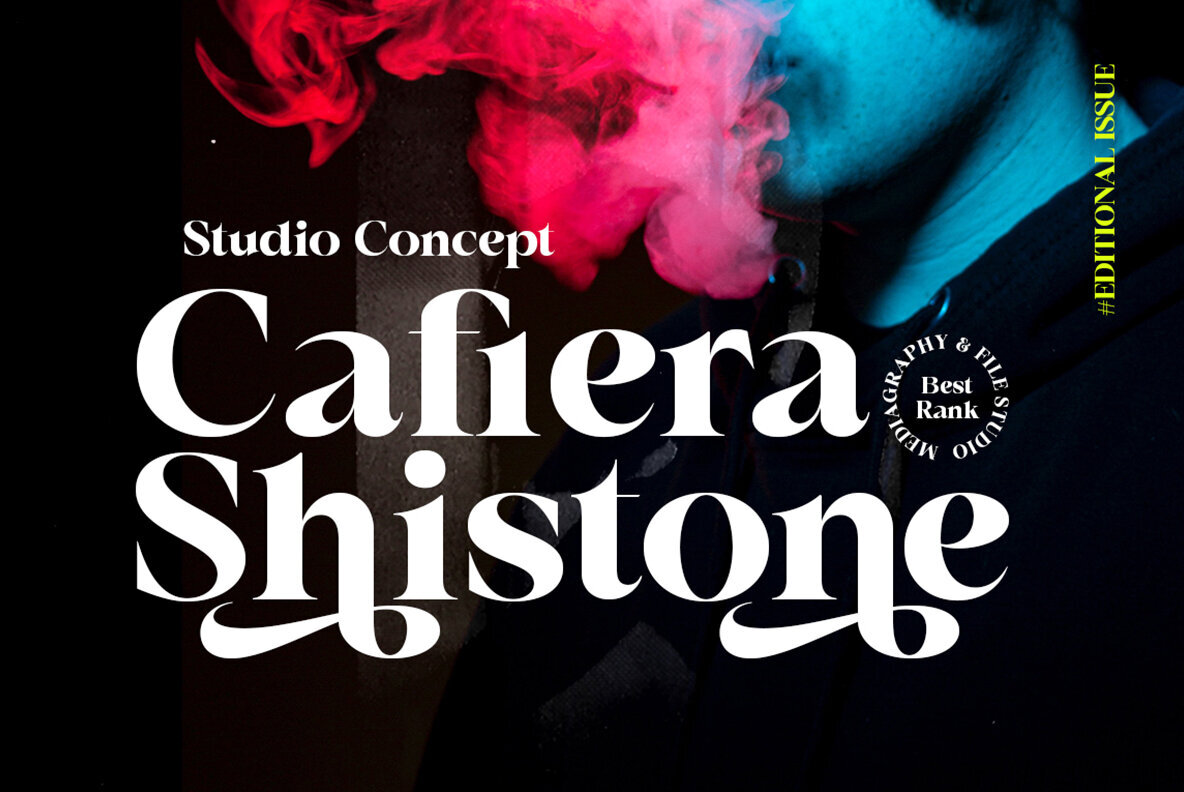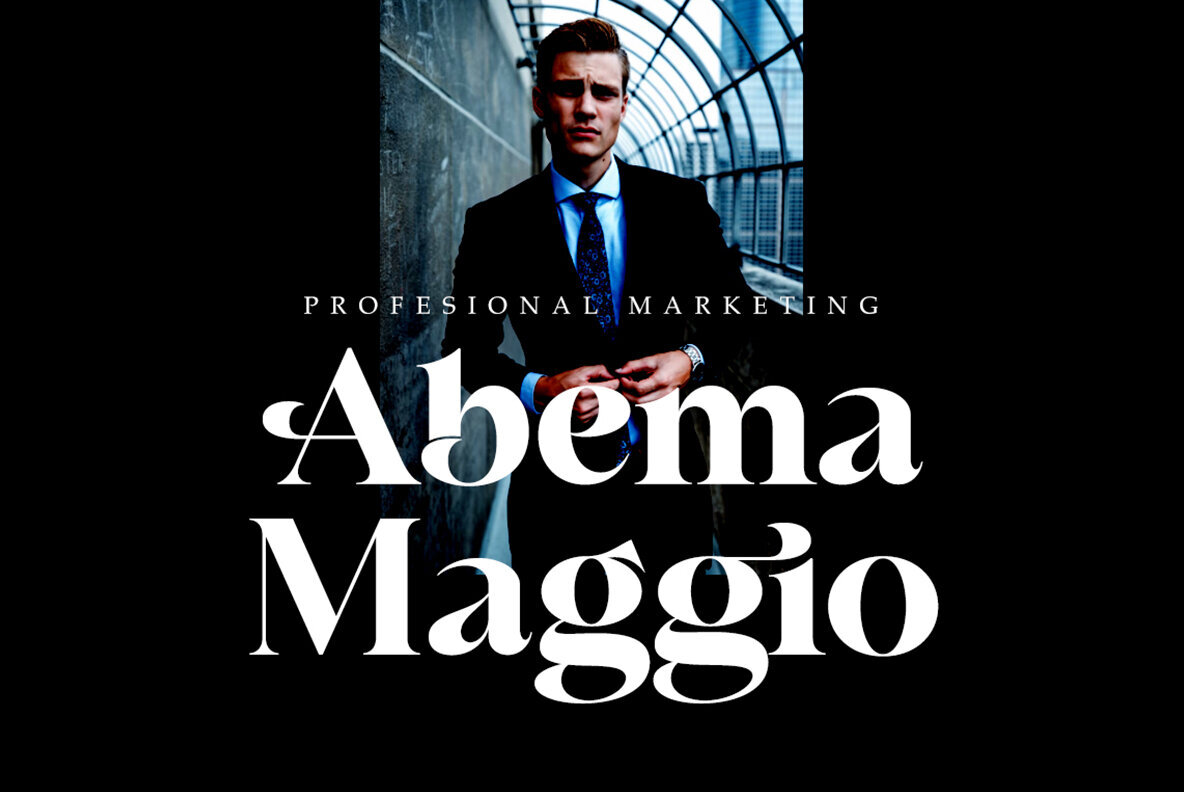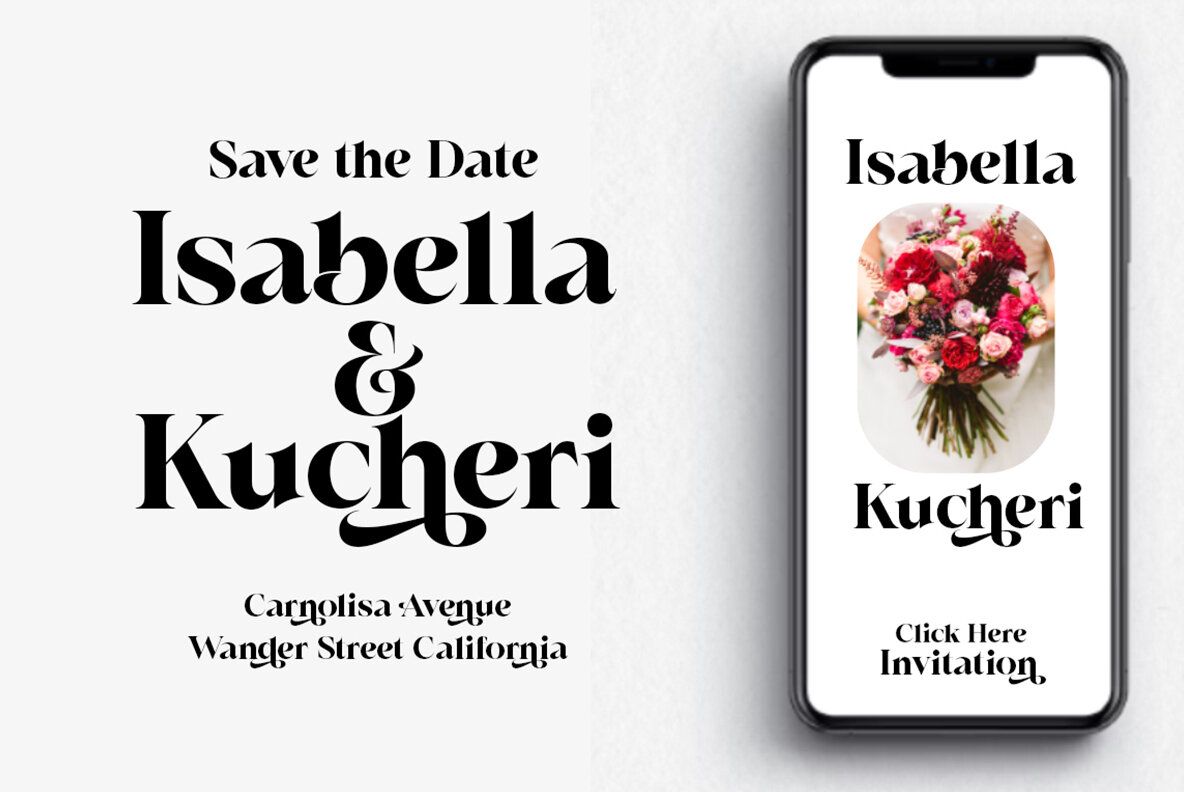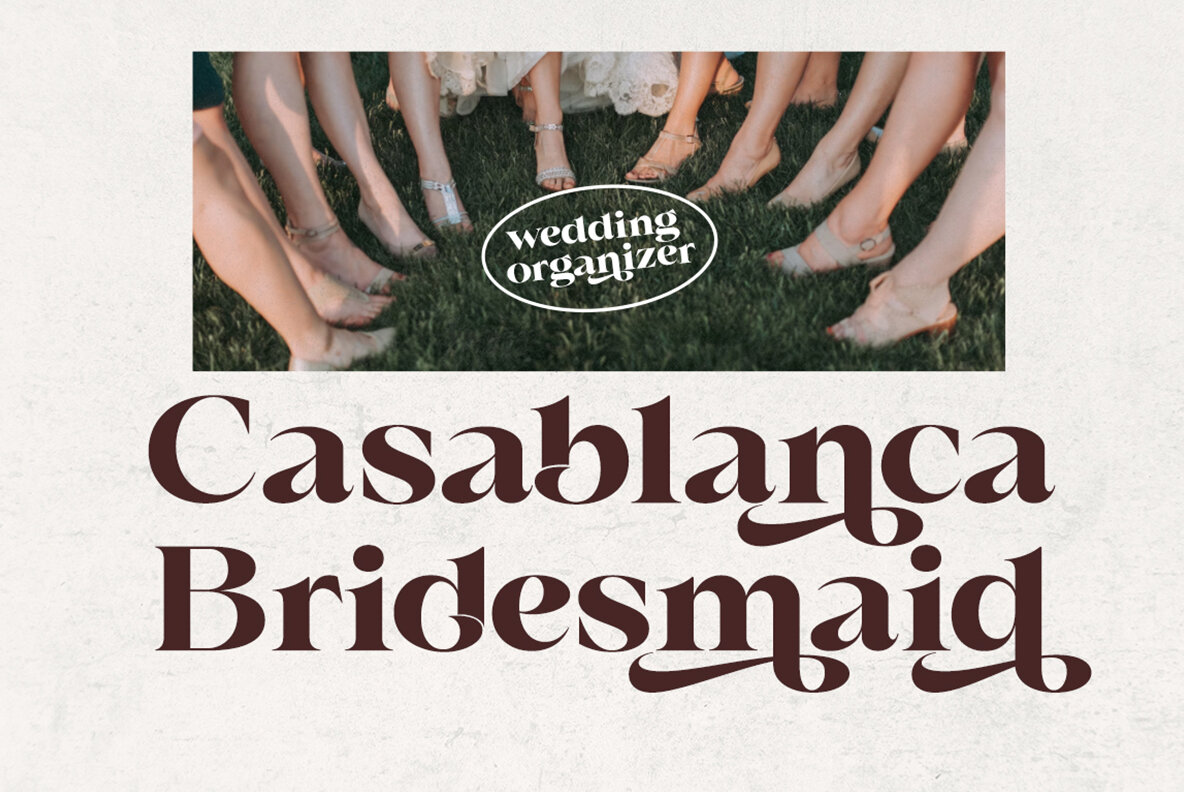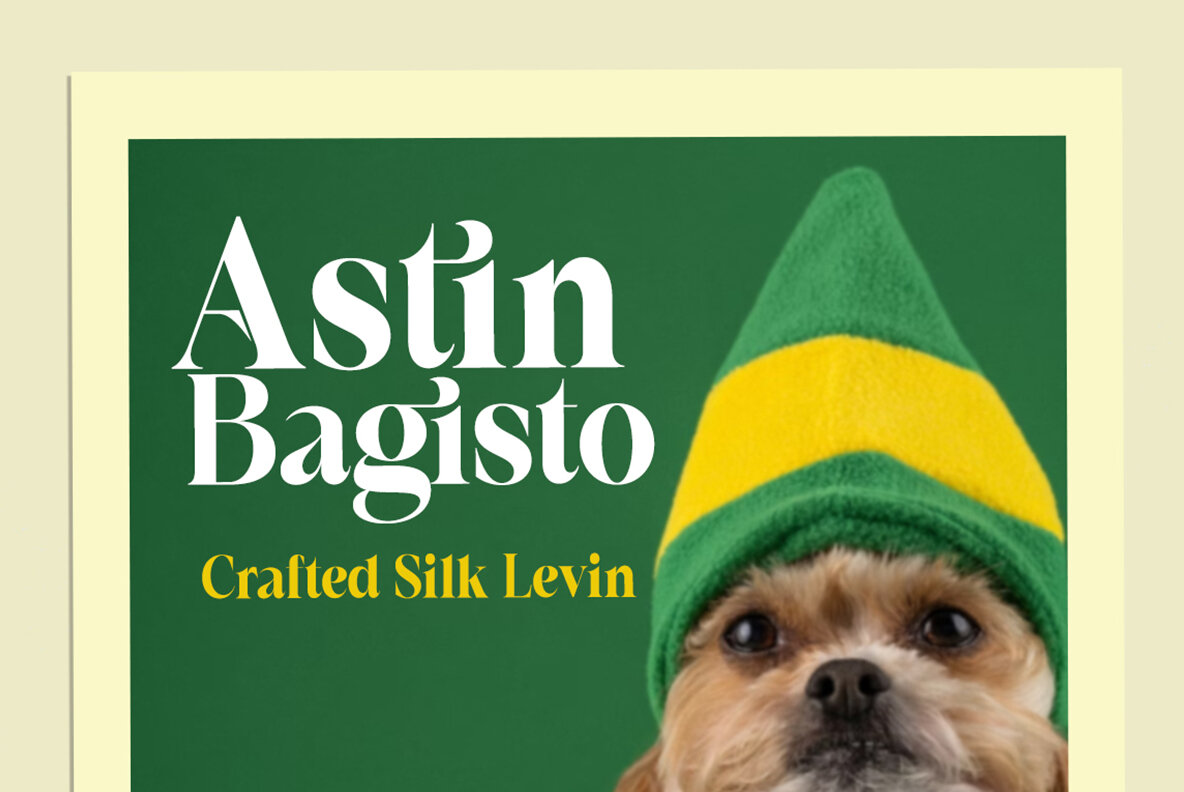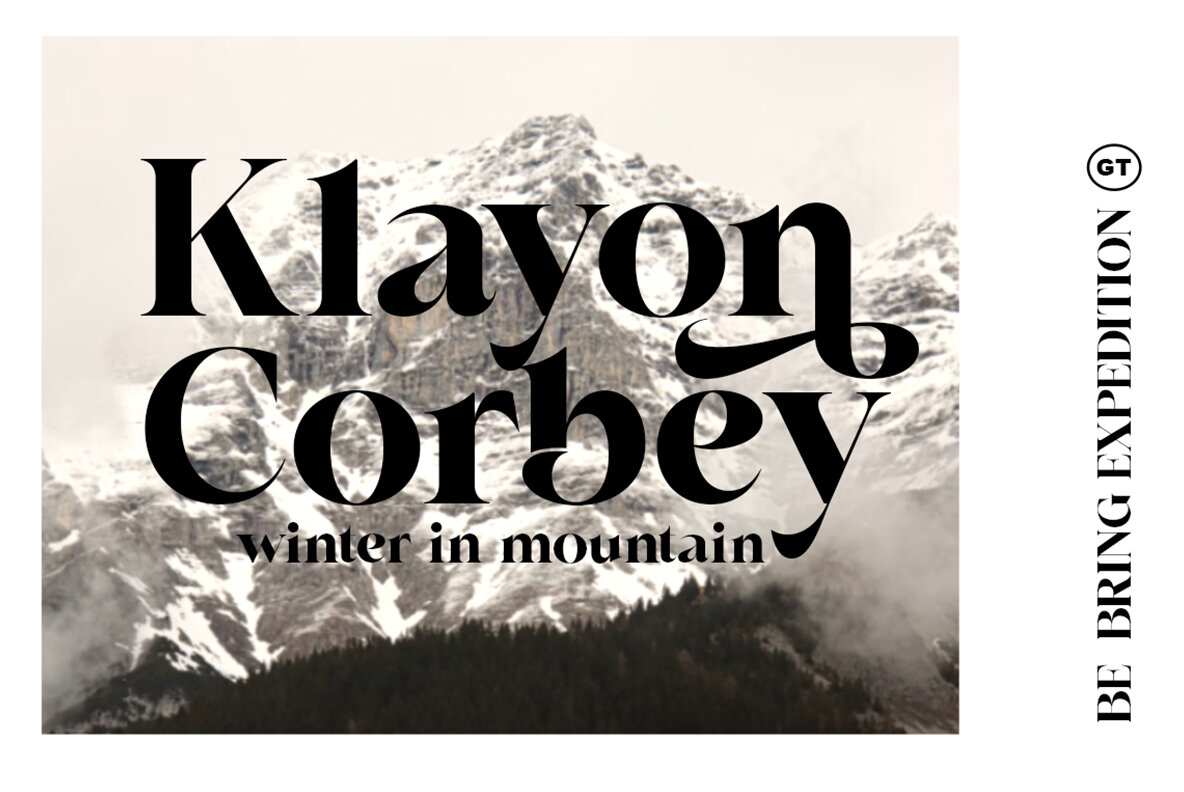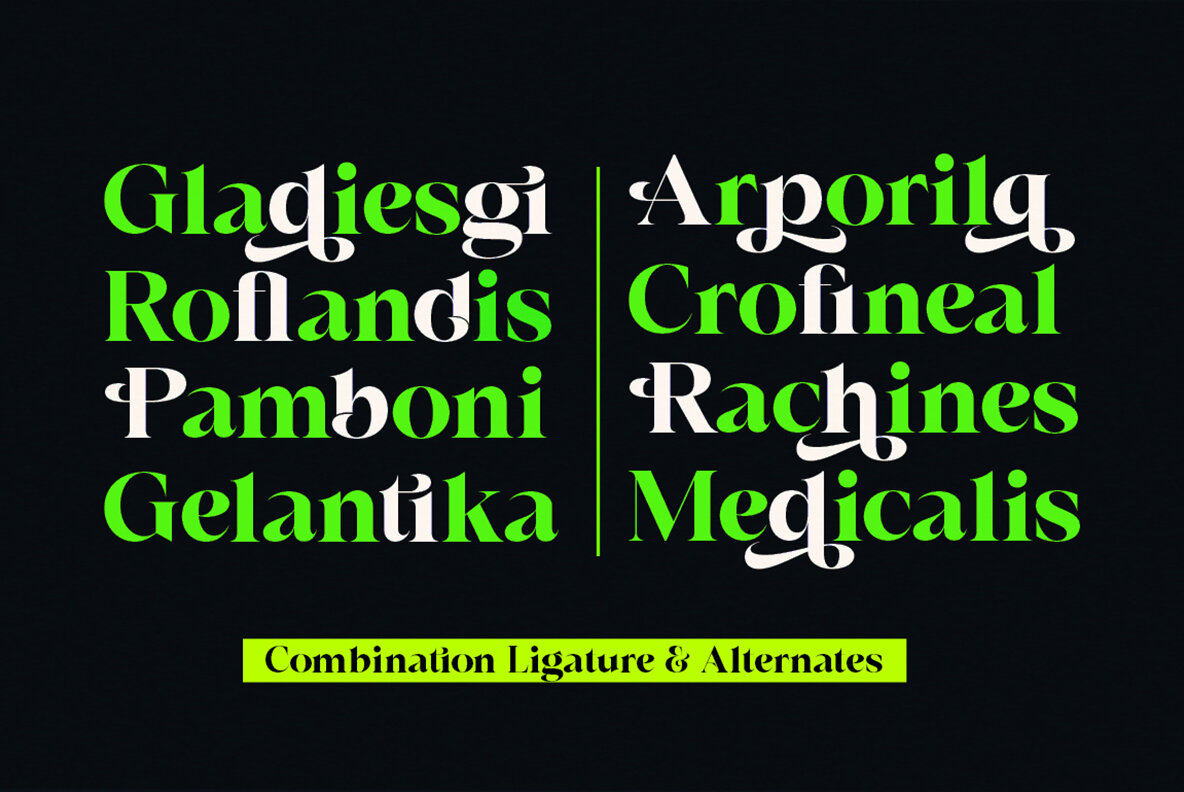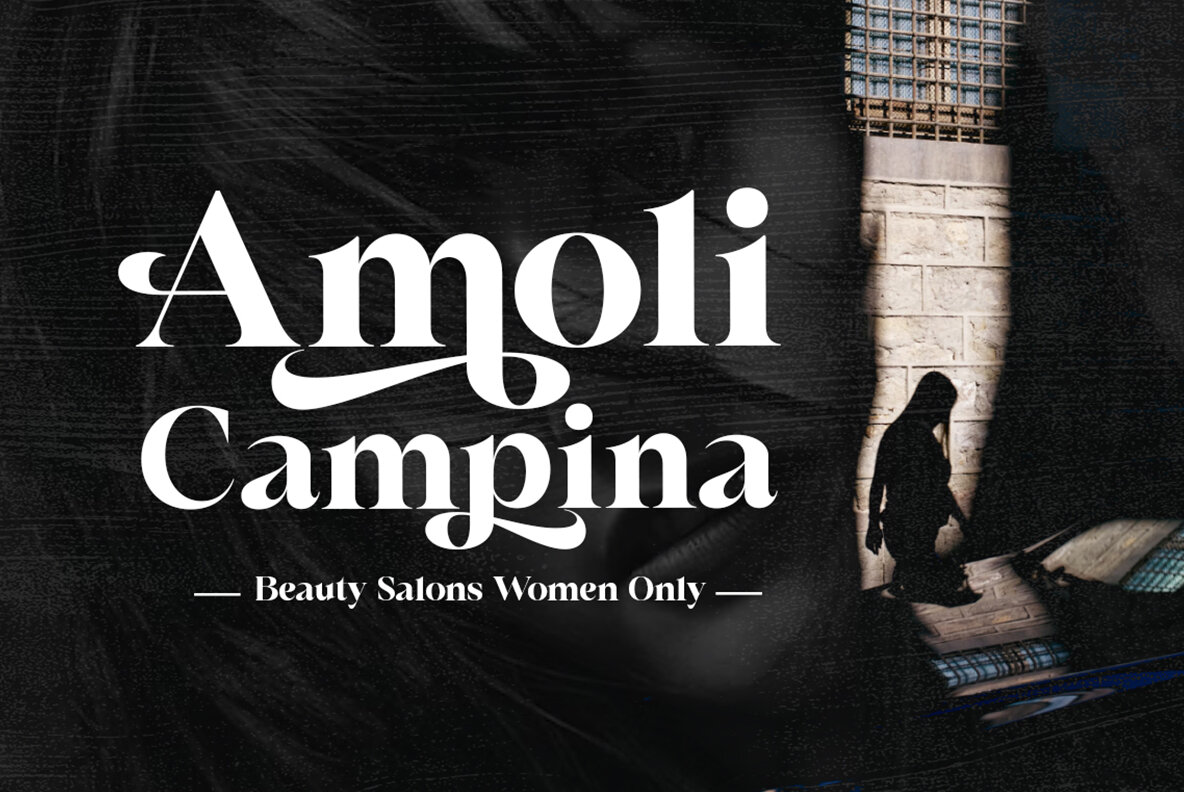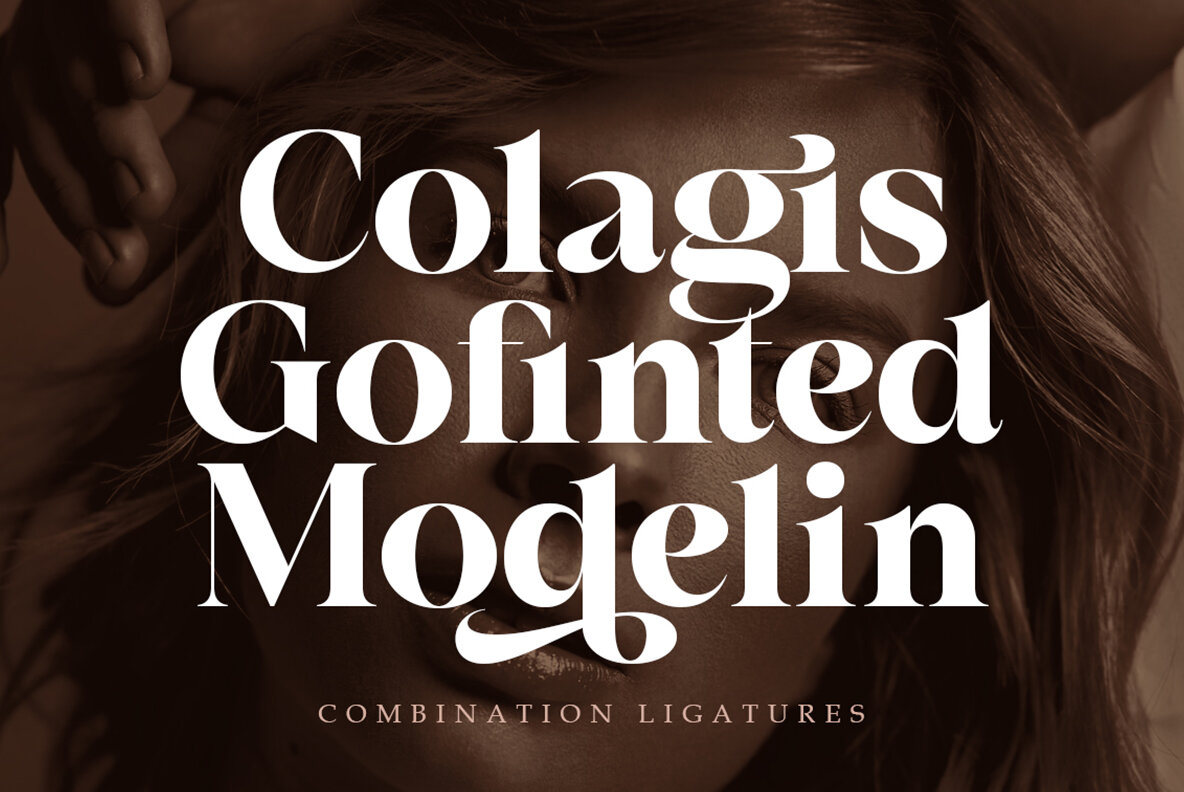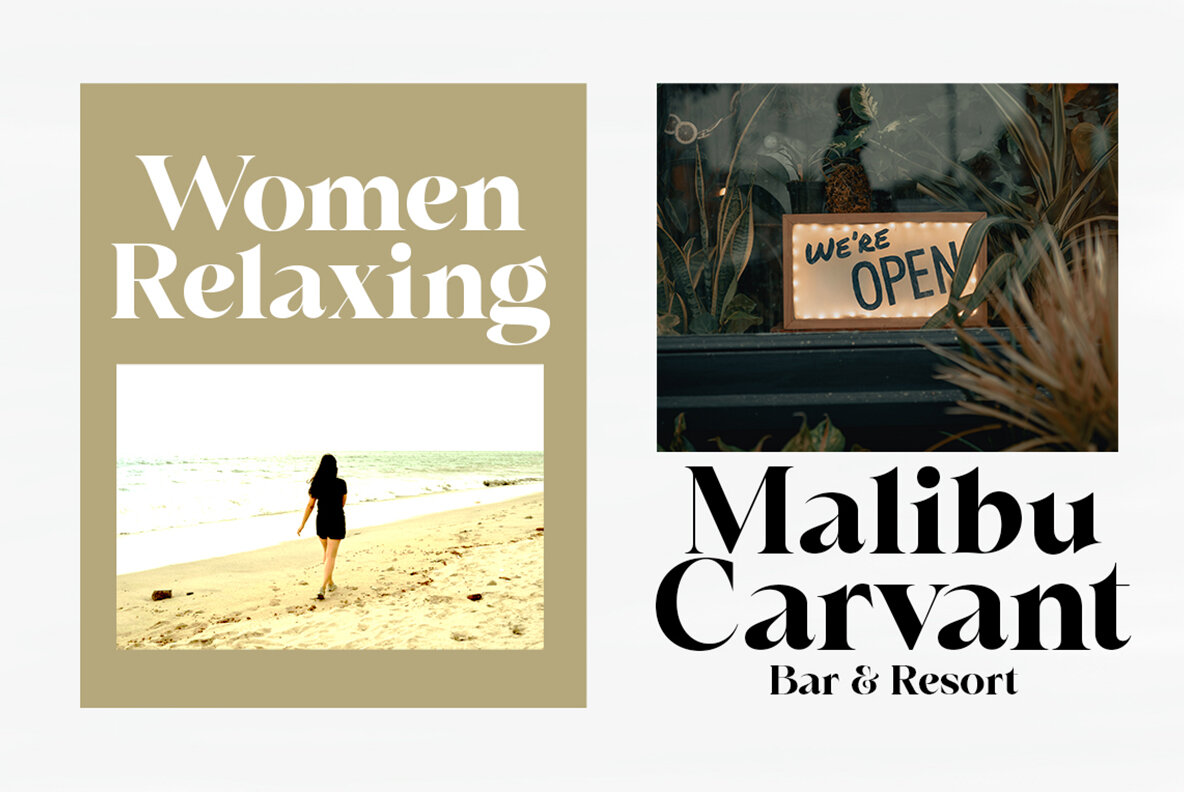
Riodis Font
Riodis Regular
Riodis Display is a serif font characterized by its luxurious, elegant, modern, and unique appearance. It is specially crafted for projects demanding sophistication, such as luxury-themed branding, magazines, social media, logos, and website headers. Its stylish flair makes it ideal for text overlays on any background image, enhancing the aesthetic with a touch of class. Riodis Display offers a rich blend of modern design elements with classic serif influences, ensuring it enhances any project requiring a luxurious touch.Riodis: A Luxurious Serif Font for Elegant Design